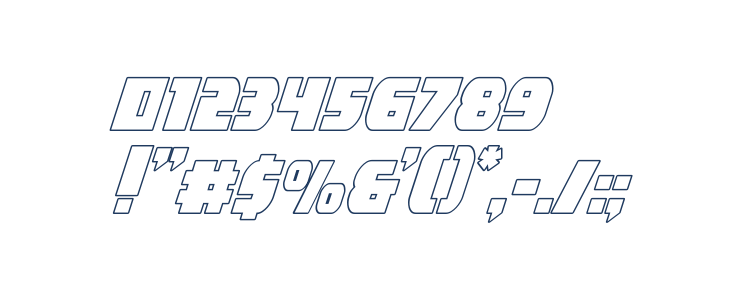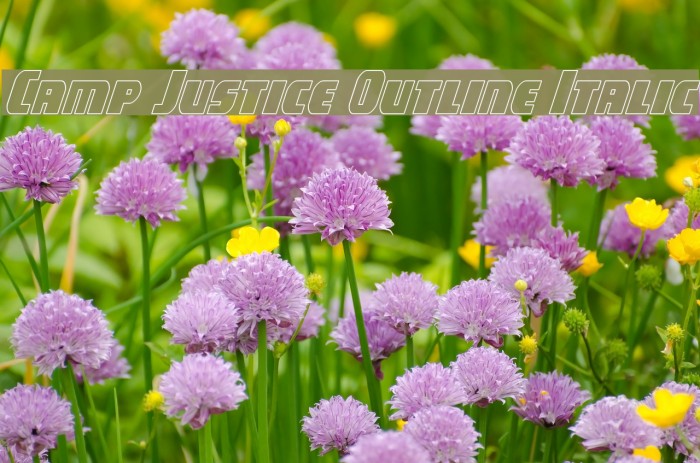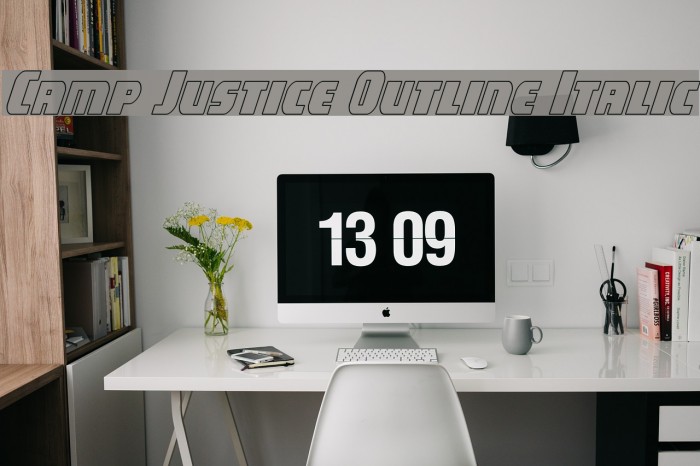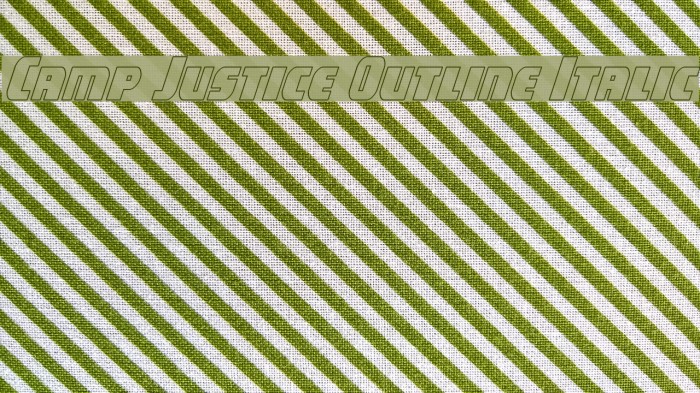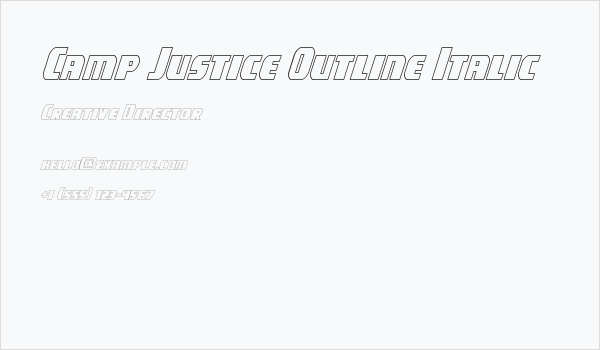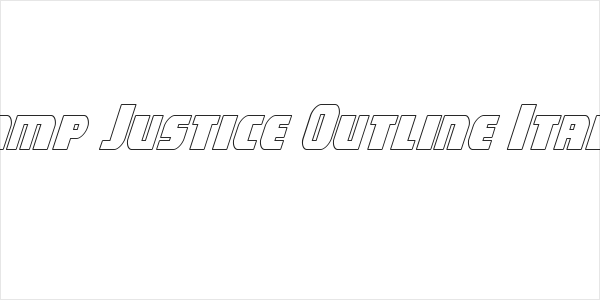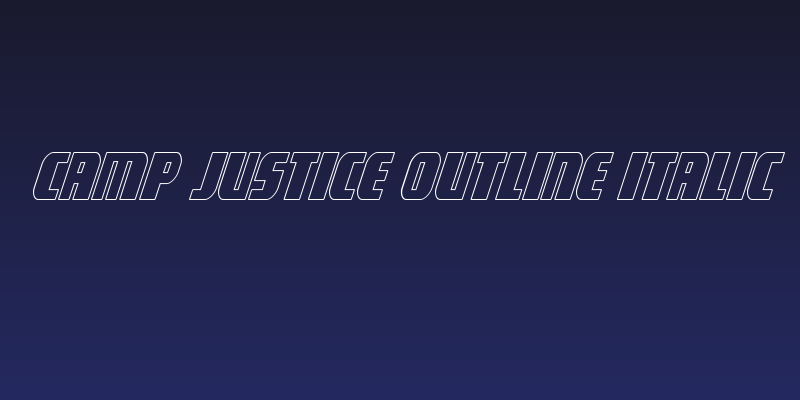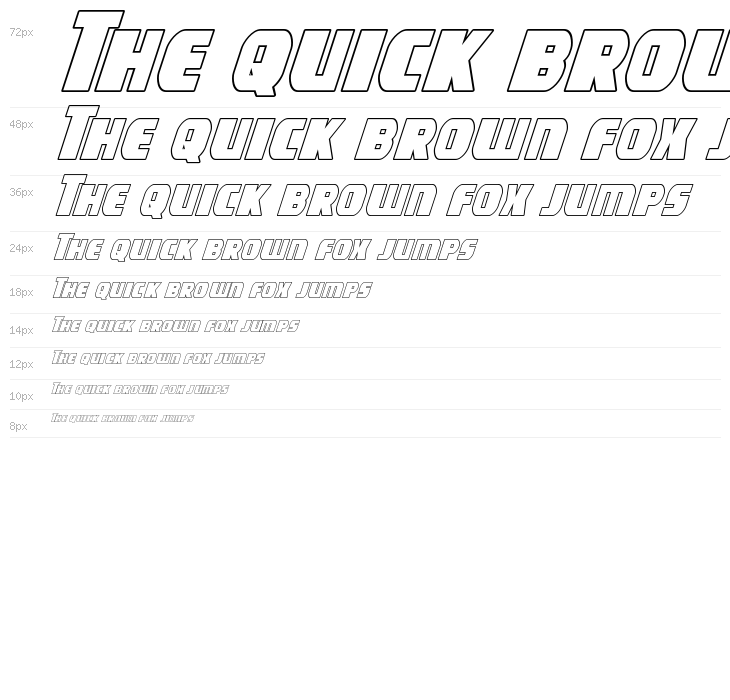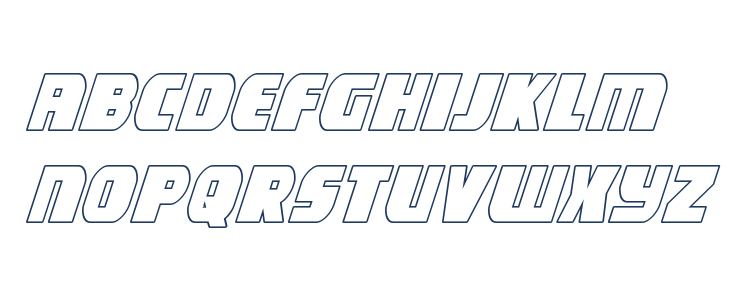
Camp Justice Outline Italic Font
Camp Justice Outline Italic Description
This font features a bold, italicized outline style that gives it a striking and dynamic appearance. Each character is designed with a consistent outline, creating a sense of depth and dimension. The uppercase and lowercase letters maintain a uniform width, contributing to a cohesive look. The numbers and special characters are crafted with the same attention to detail, ensuring they blend seamlessly with the alphabet. The italic slant adds a sense of motion, making it ideal for projects that require a modern and energetic feel.
| Proposed Projects | Ideal for sports branding, posters, headlines, and any design requiring a bold, energetic look. |